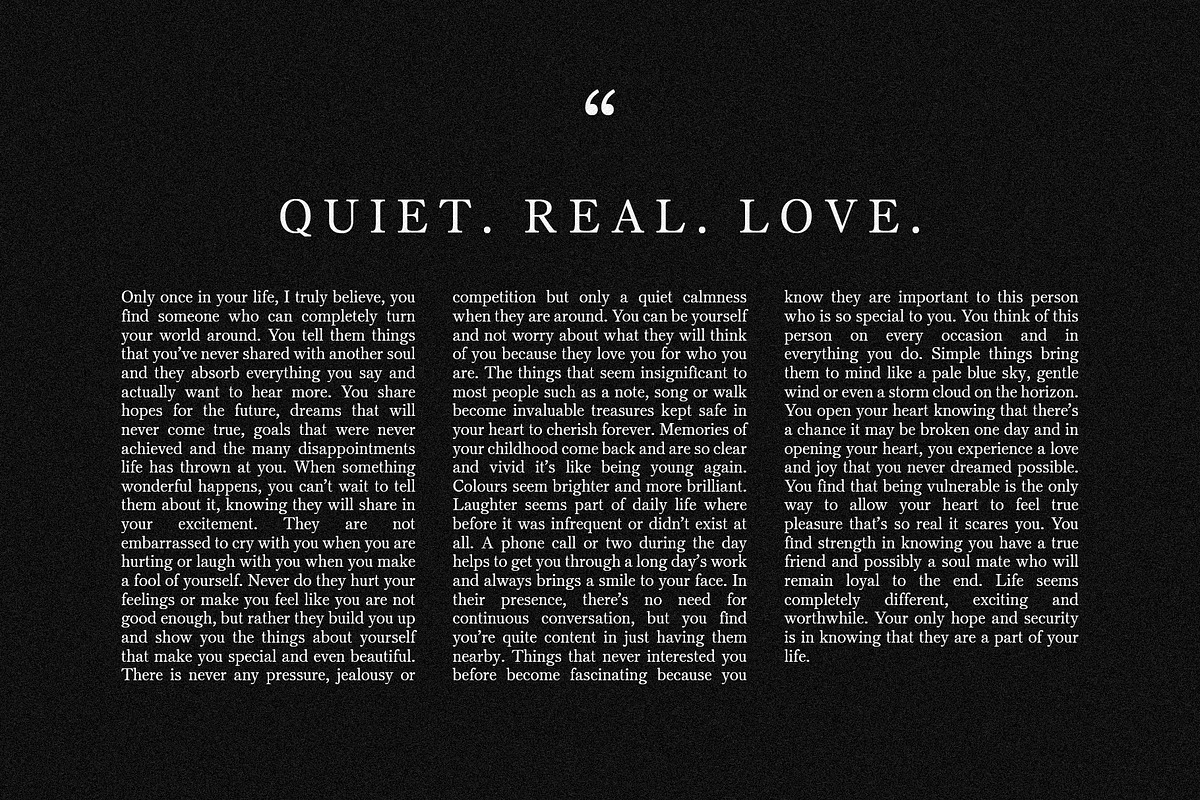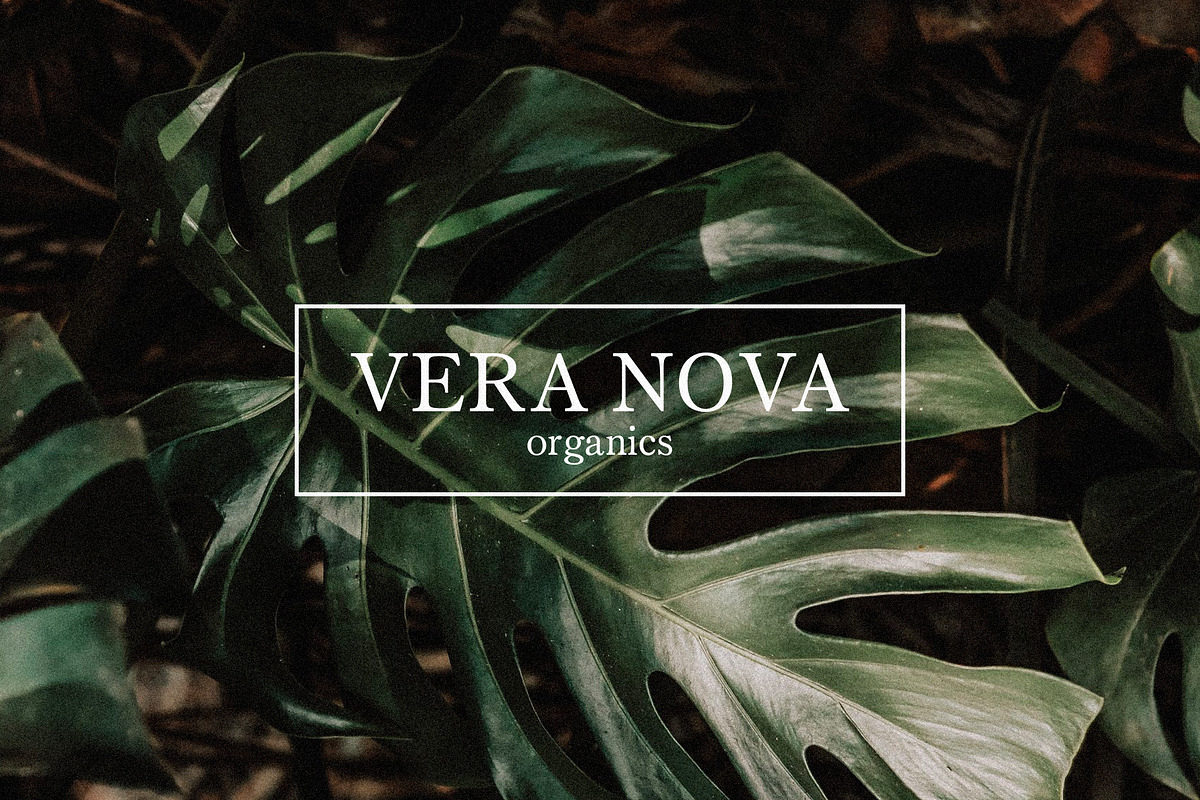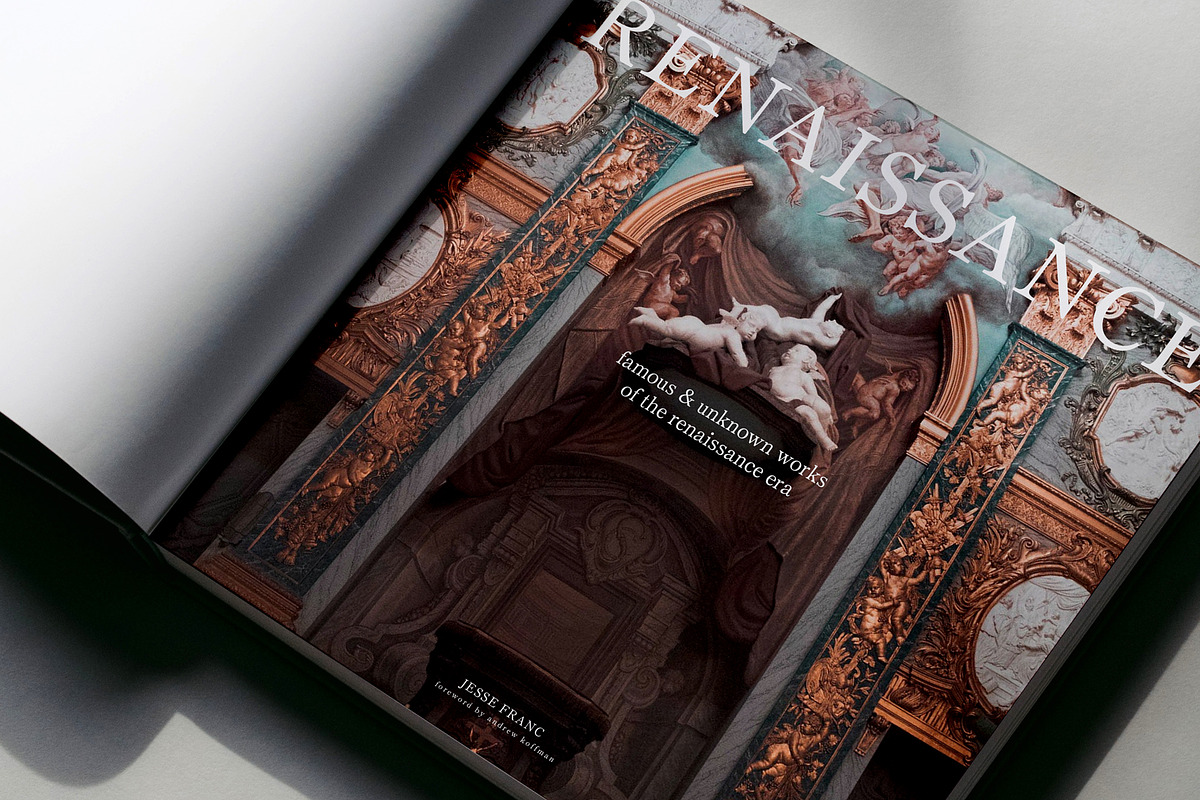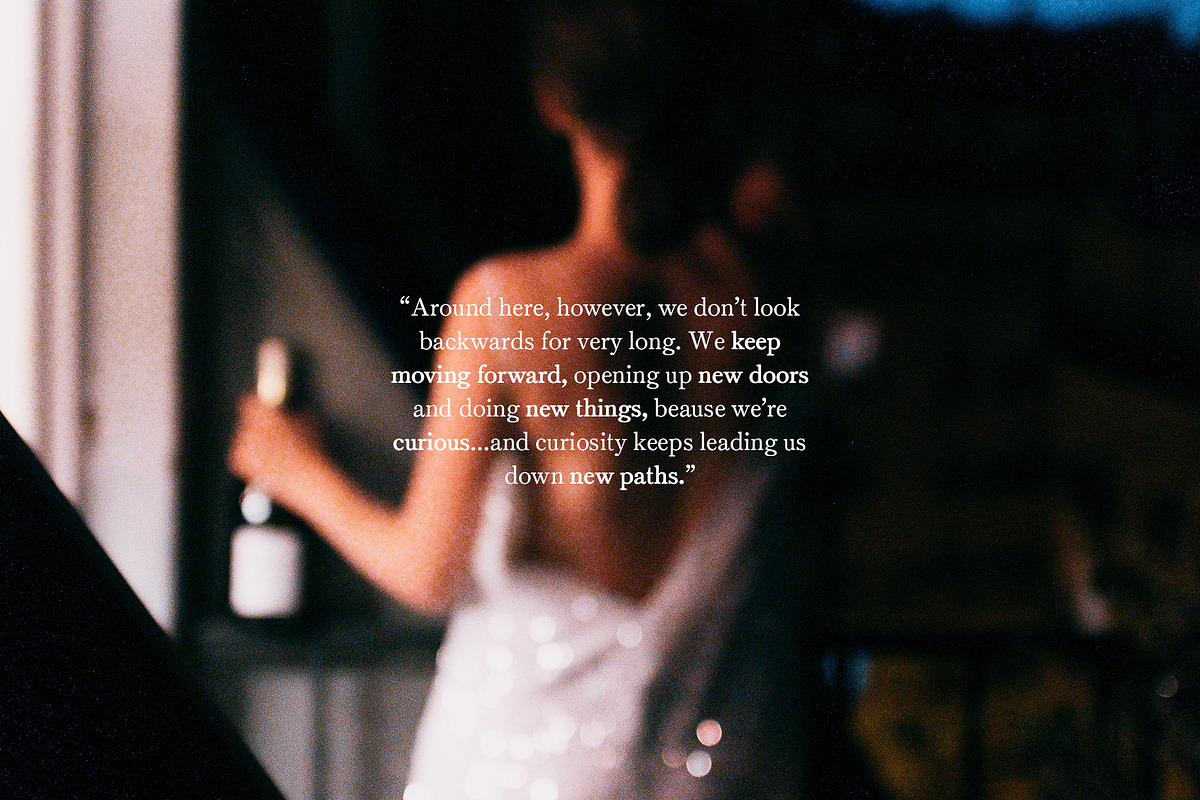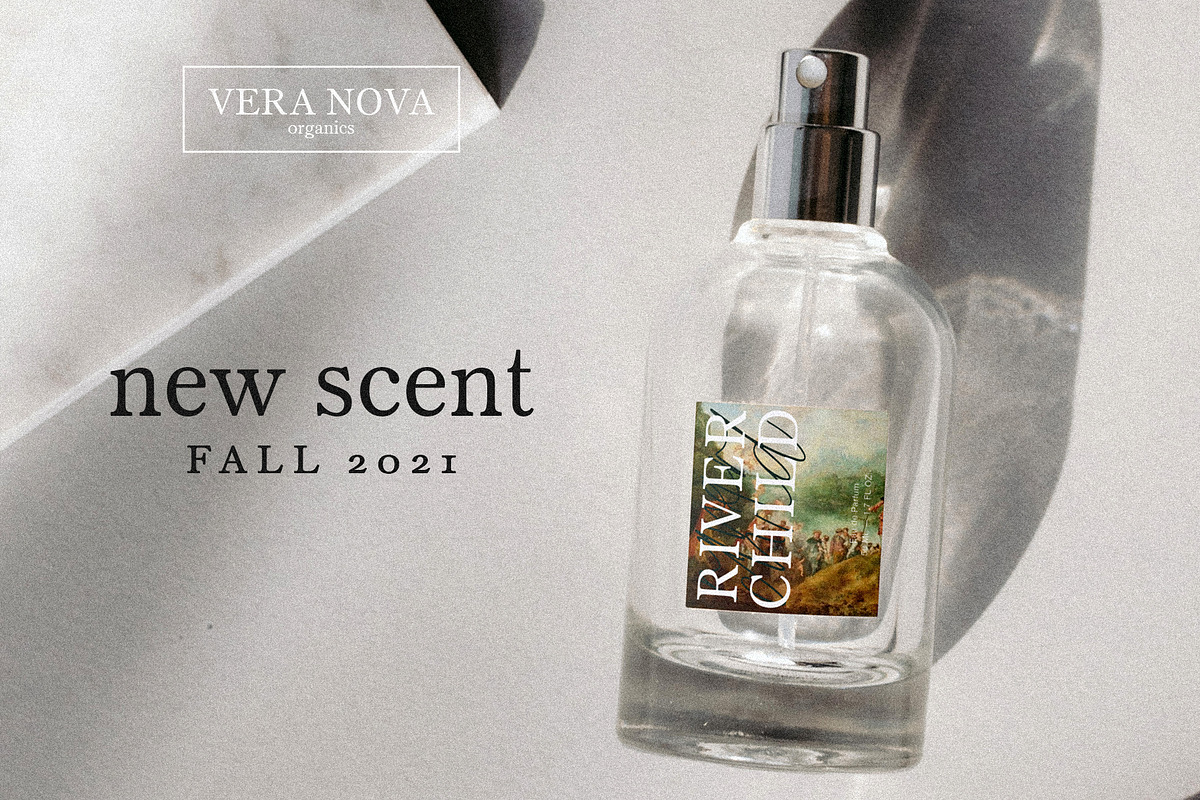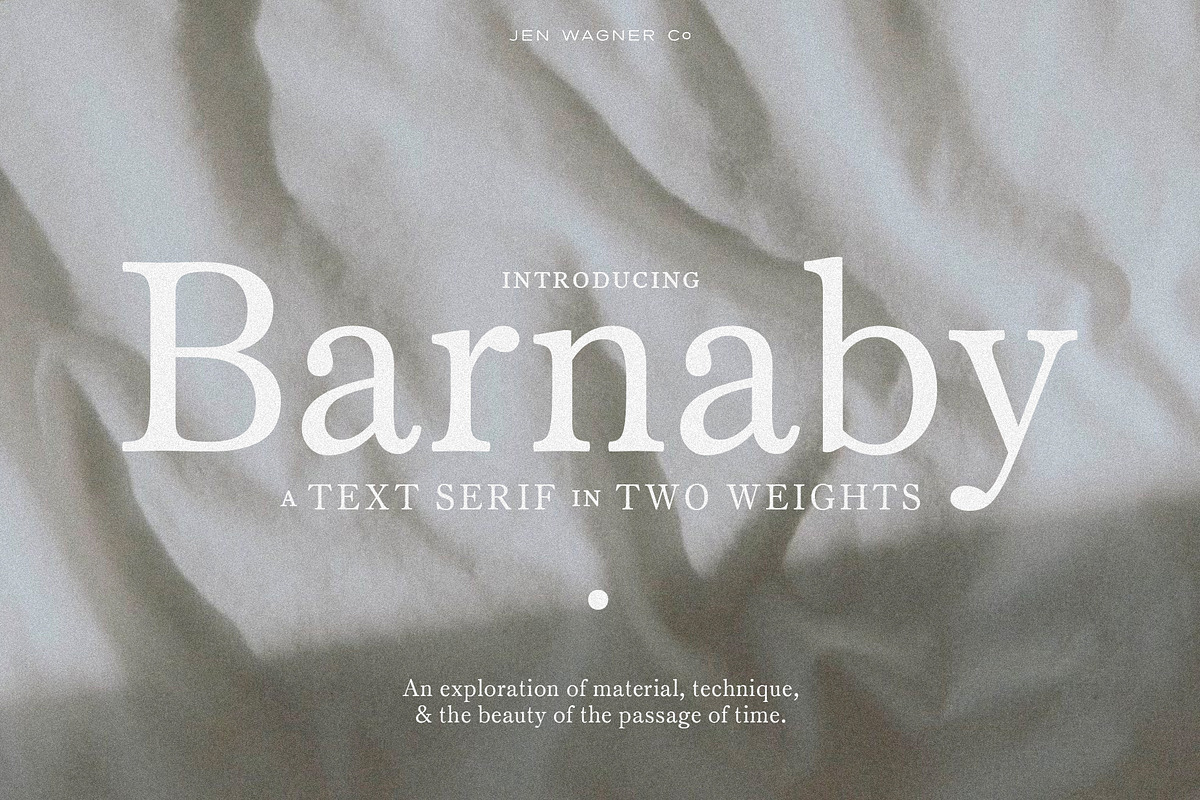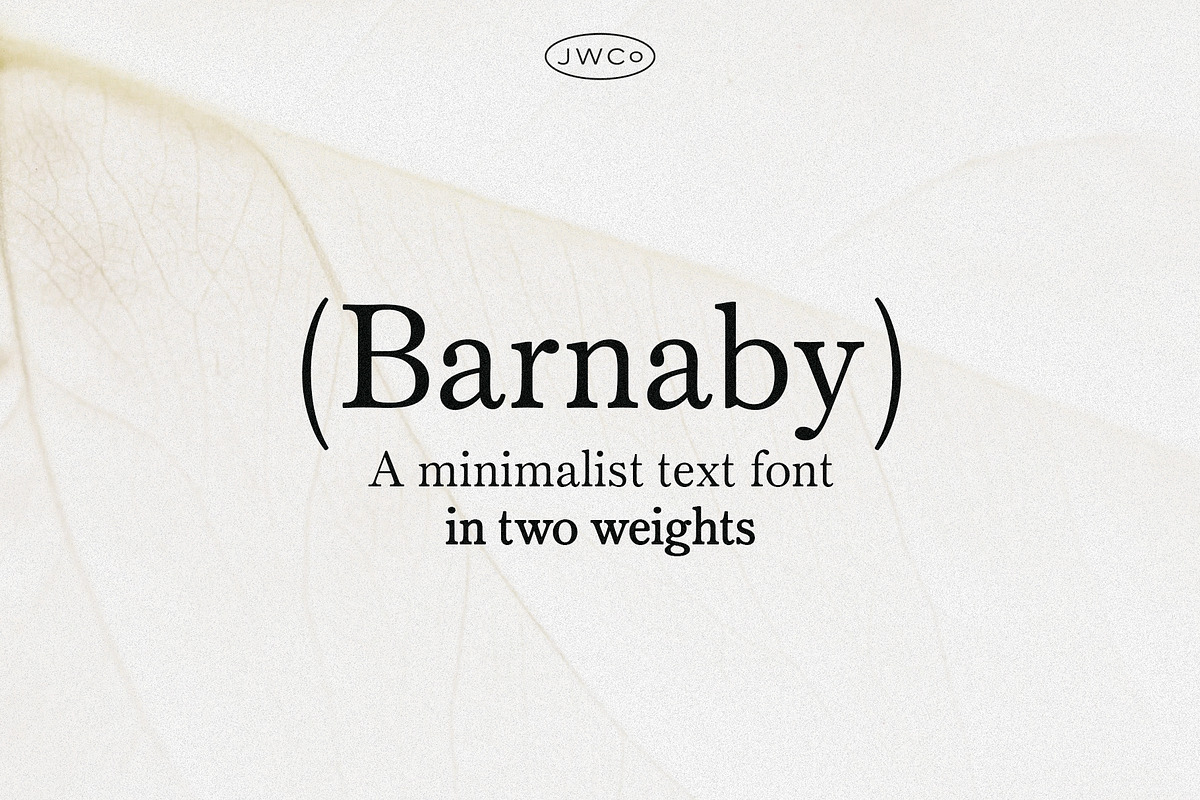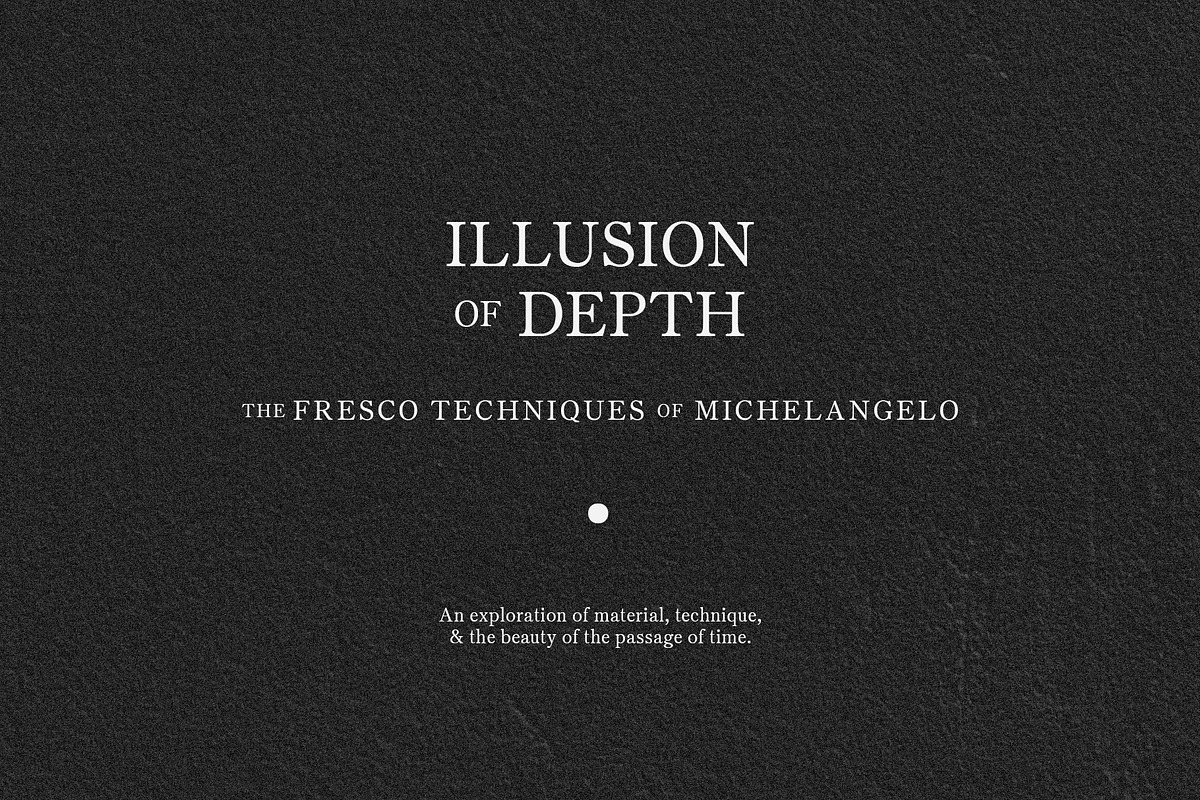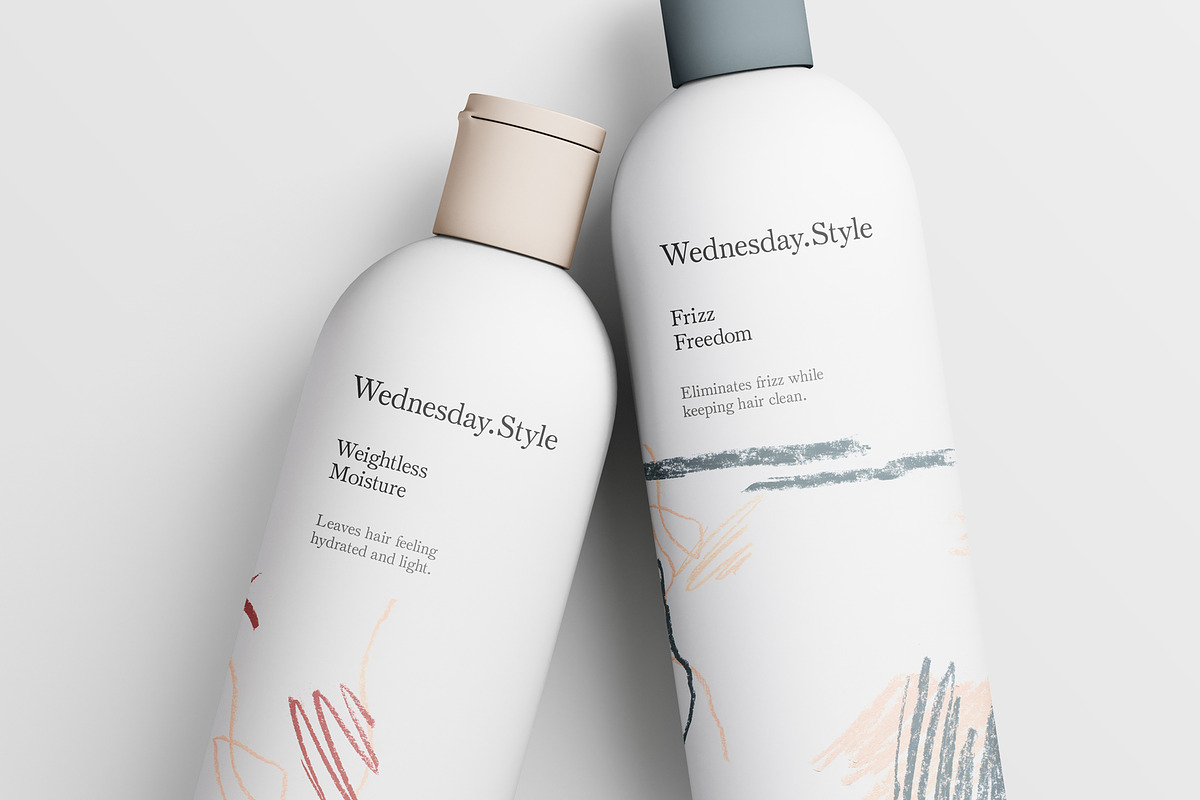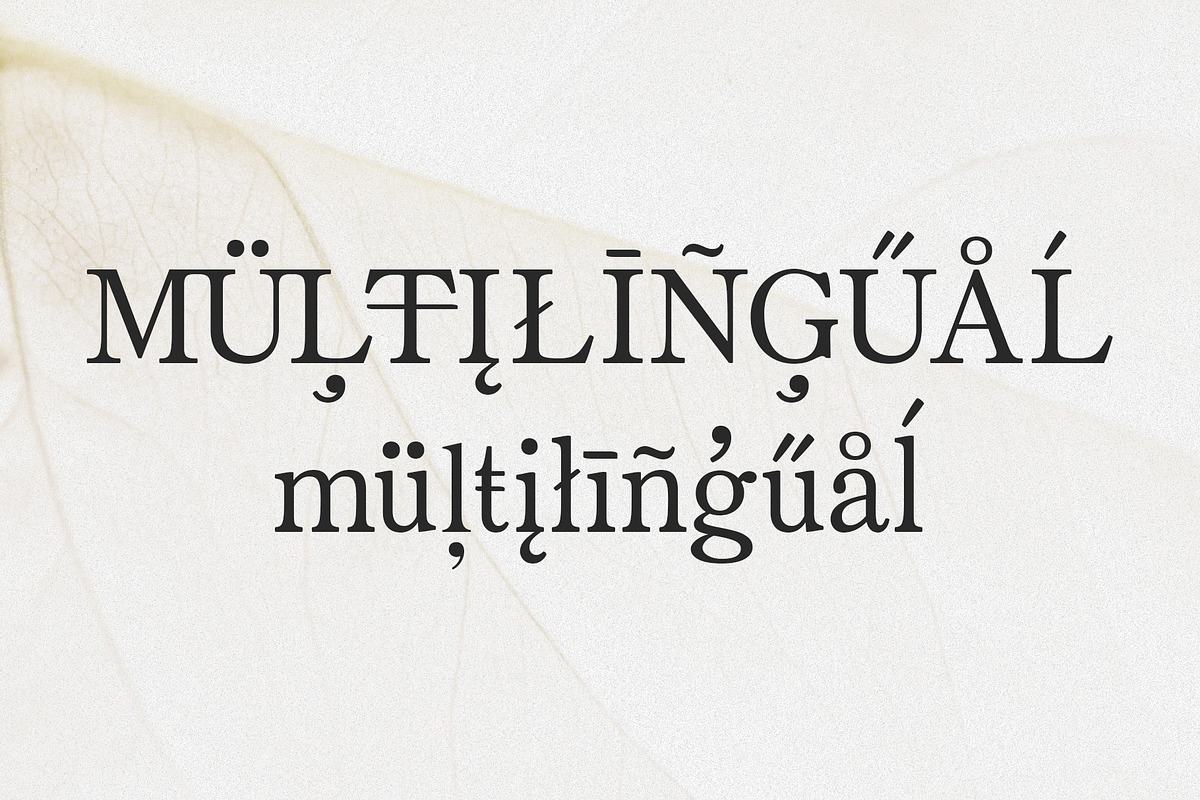
Barnaby | A Minimalist Text Serif
Barnaby is a stunning upper and lowercase text serif that works beautifully for branding projects and especially body text.
Designed to be easily read at small scale, Barnaby is a beautiful choice for text in both digital and print formats. Plus, it comes in two weights to help create some contrast and distinction not only in your text, but also in your headings and logos.
While designed for text, I personally love using Barnaby in all caps for a luxe logo design or a timeless heading (see the Vera Nova logo above). You can have fun experimenting with how the two weights interact together (for example, "new scent" is set in Regular, and "Fall 2021" is set in semibold).
No matter how you use it, Barnaby is a beautifully timeless, simple, and legible serif that can easily become a staple in your font library.